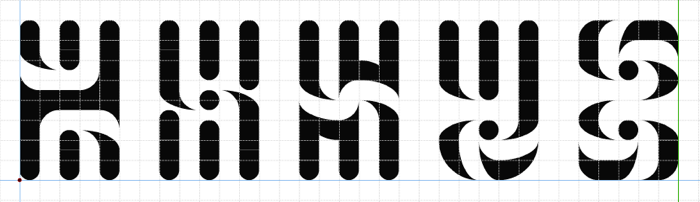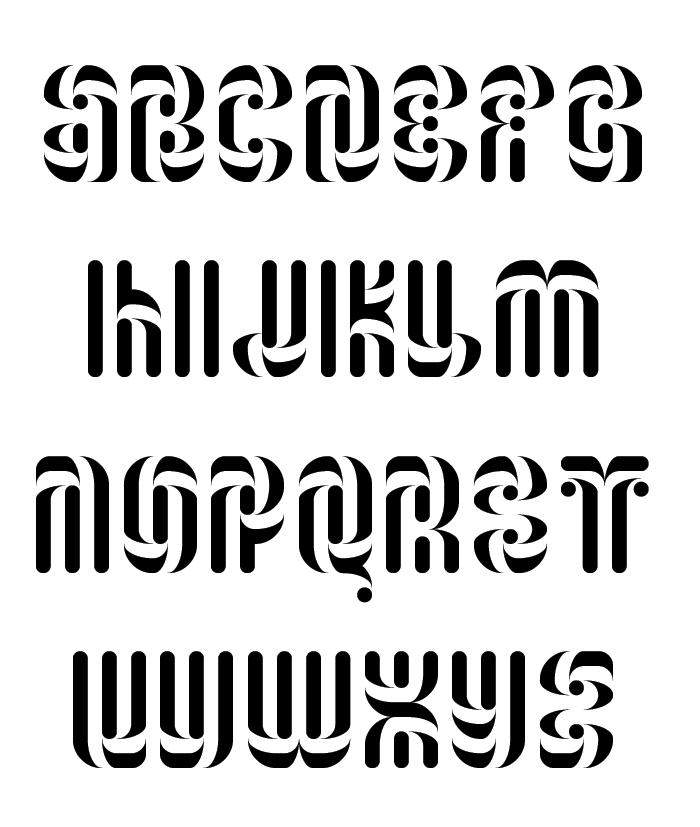
Precious font! I love it a lot! Sincerely, I like your h, I think it's the best solution, but I send you some alternatives to it and to the Y and Z too. Glad you can use any part of them, compañero.
This looks really good so far. I'm not a fan of the H, though. 10/10
Wonderfully twisty!
Wow you are very creative, love this twist
Thank you Rob, Michel, laynecom and Noah! I'll try to add an alternative H asap.
Precious font! I love it a lot! Sincerely, I like your h, I think it's the best solution, but I send you some alternatives to it and to the Y and Z too. Glad you can use any part of them, compañero.
Thanks for your excellent suggestions elmo! I'll definitely include your Y and Z. I'll have to see which H works best.
Nice. I prefer the 3rd H, and the Y.
Fantastic! So creative and lyrical! Congratulations! ;-P